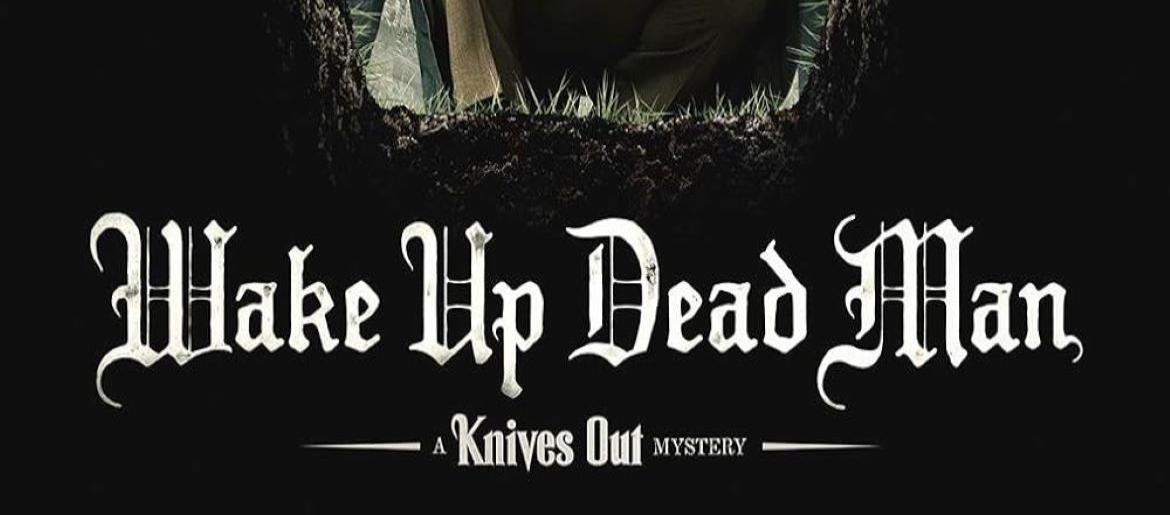
Wake Up Dead Man Font
The Wake Up Dead Man Font exudes a raw, intense, and gritty energy. Its jagged edges and bold strokes create a sense of rebellion and danger, making it perfect for horror posters, rock band graphics, or any design seeking a dark, edgy vibe. The distressed texture adds depth and atmosphere, giving text a handcrafted, chaotic feel that captures attention immediately.
About Wake Up Dead Man
Wake Up Dead Man is a film that mirrors the intense character of the font. The movie explores themes of survival, moral dilemmas, and the thin line between life and death. Just as the font communicates tension and danger visually, the story delivers emotional impact through dark, gripping narratives. Its haunting and immersive atmosphere, combined with high-stakes drama, makes it a perfect match for the font’s bold, chaotic aesthetic, resonating with audiences seeking thrilling and intense cinematic experiences.